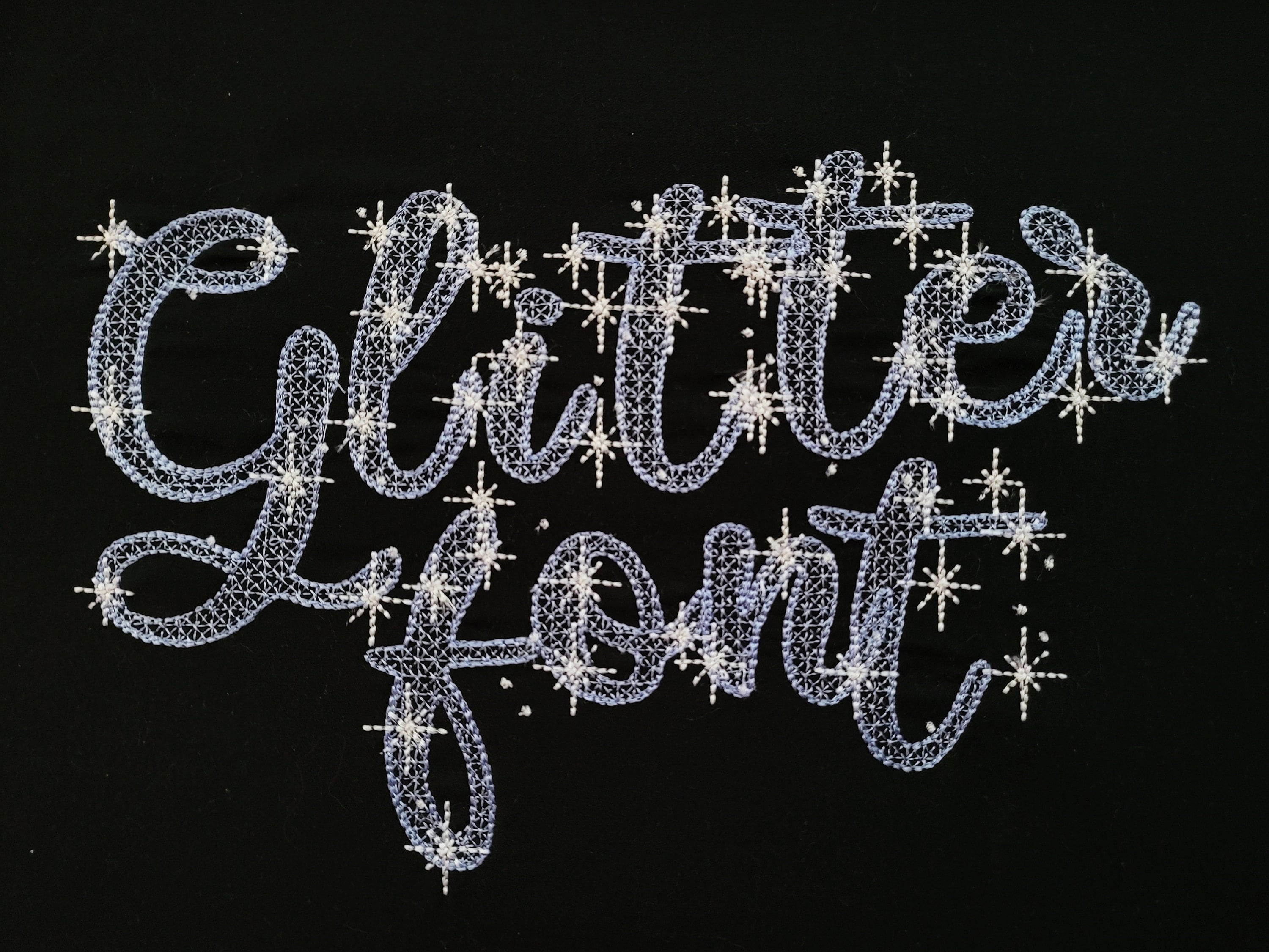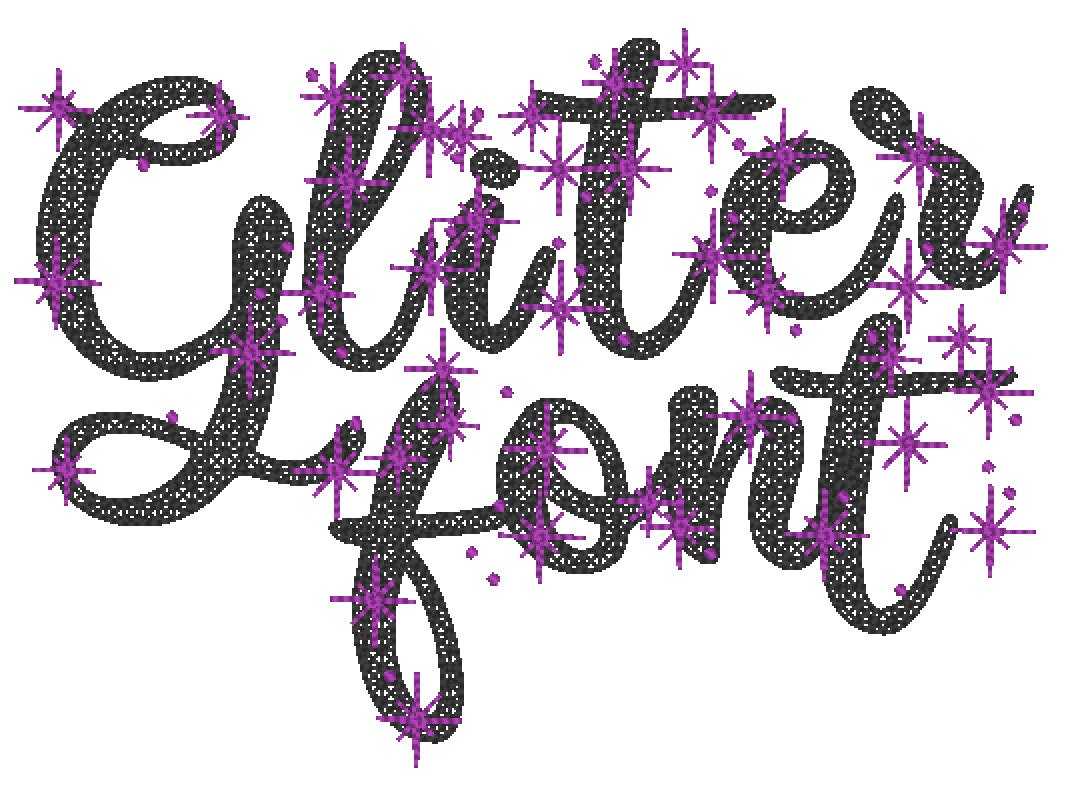
Glitter sparkling FONT night starry sky alphabet kids girl princess name monogram machine embroidery designs in assorted sizes, BX included
It looks incredible! The design looks like lace, the background fabric looks through.
Whole alphabet A-Z uppercase and lowercase.